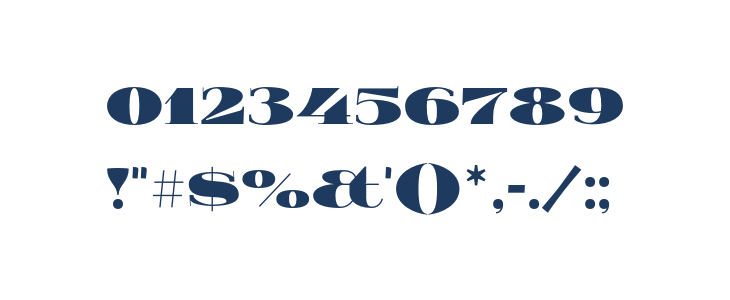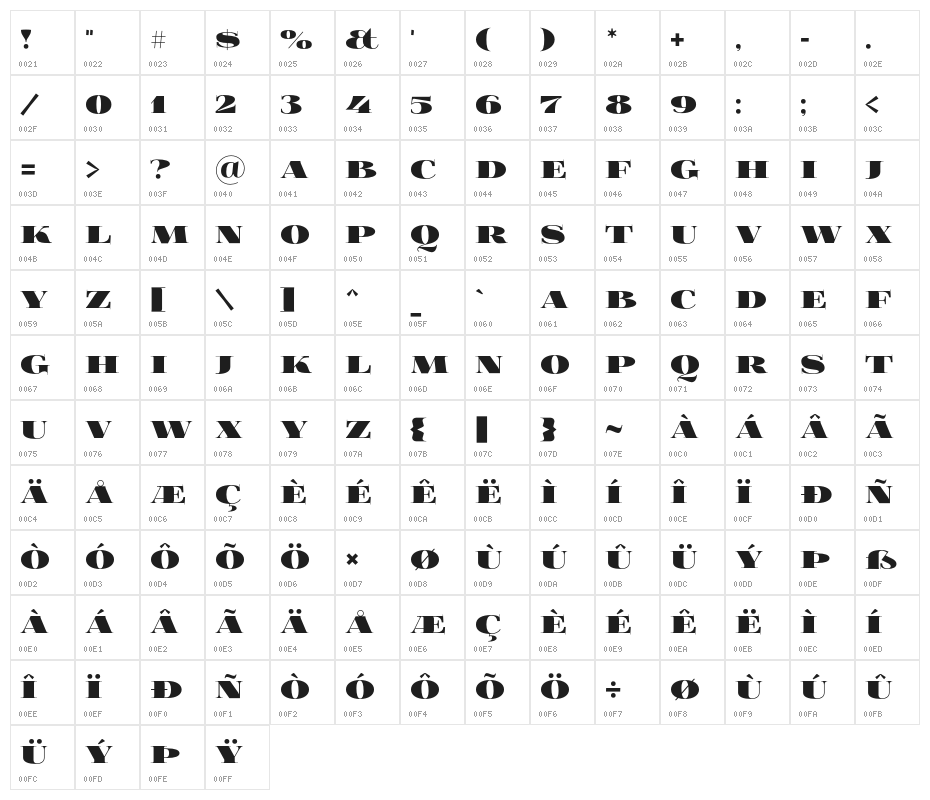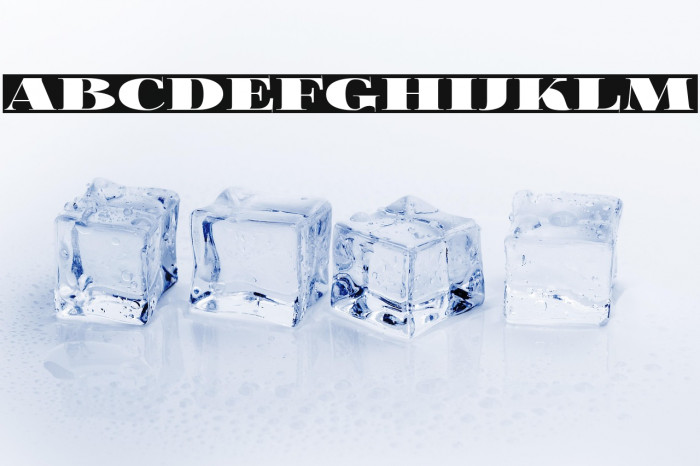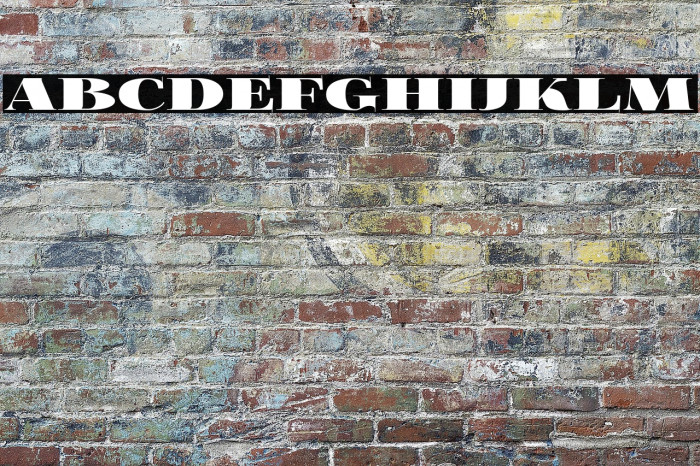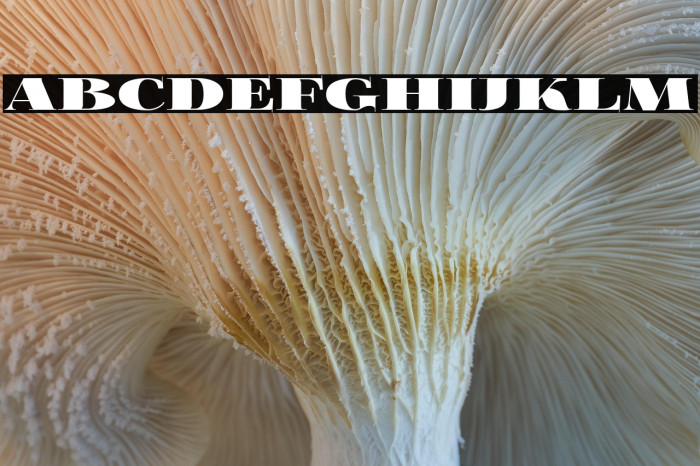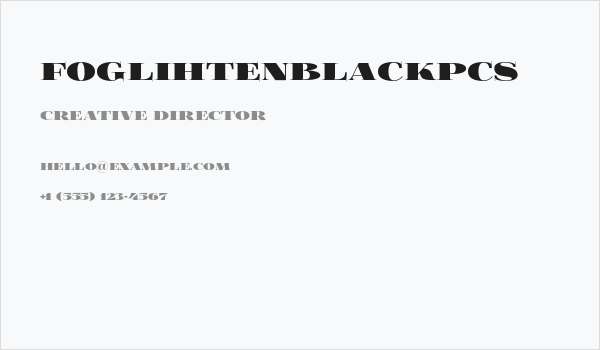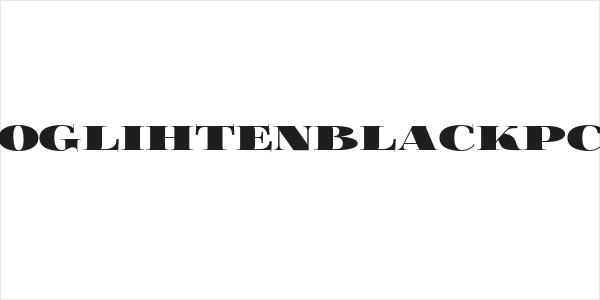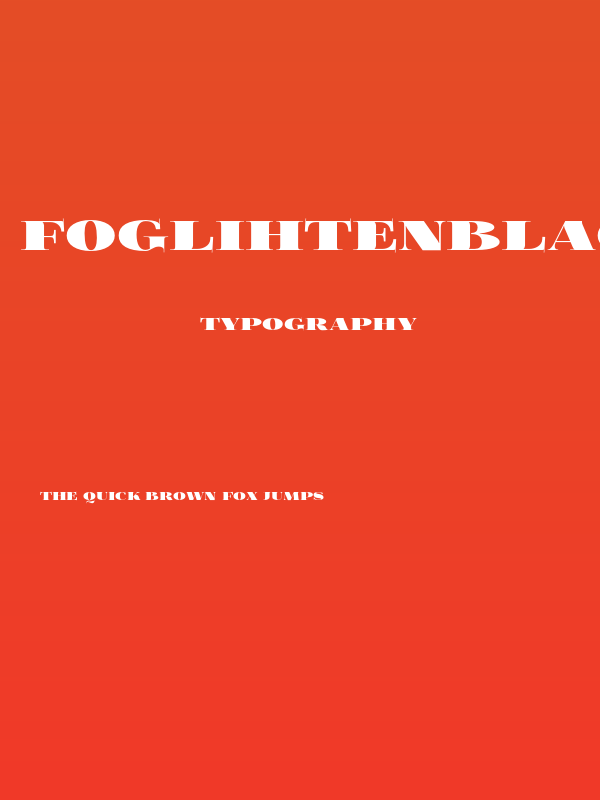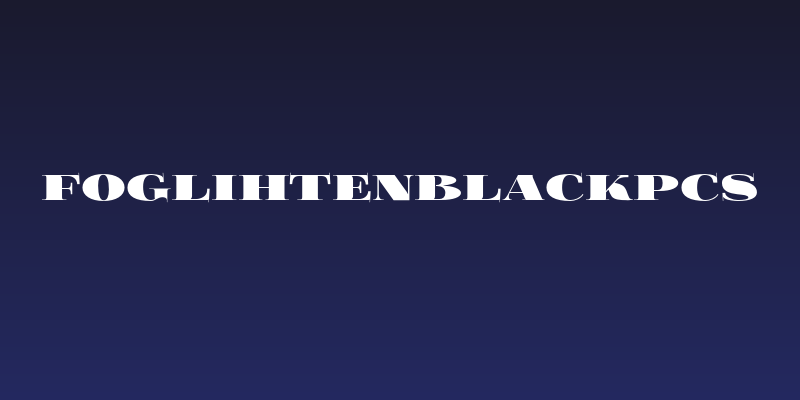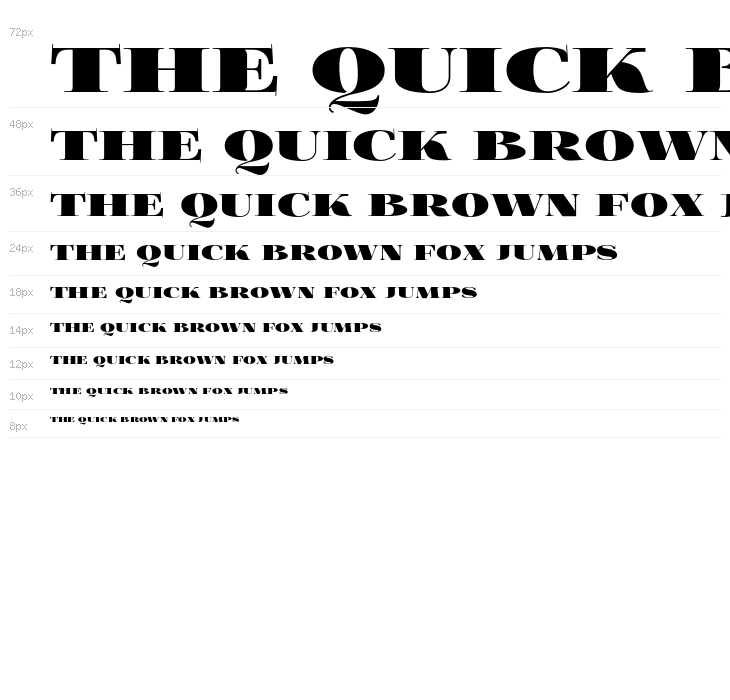
FoglihtenBlackPcs Font
FoglihtenBlackPcs Description
This font is a bold and striking display typeface characterized by its thick, heavy strokes and high contrast between thick and thin lines. The uppercase letters exhibit a strong presence with sharp serifs and a modern flair, making it ideal for attention-grabbing headlines. The lowercase letters maintain the same boldness, ensuring consistency throughout the text. The numerals are equally robust, providing a cohesive look across different types of content. Special characters are designed with the same boldness, ensuring they stand out in any context. The overall style is modern and decorative, suitable for projects that require a strong visual impact.
| Proposed Projects | Ideal for branding, poster design, magazine covers, and any project requiring a bold statement. |